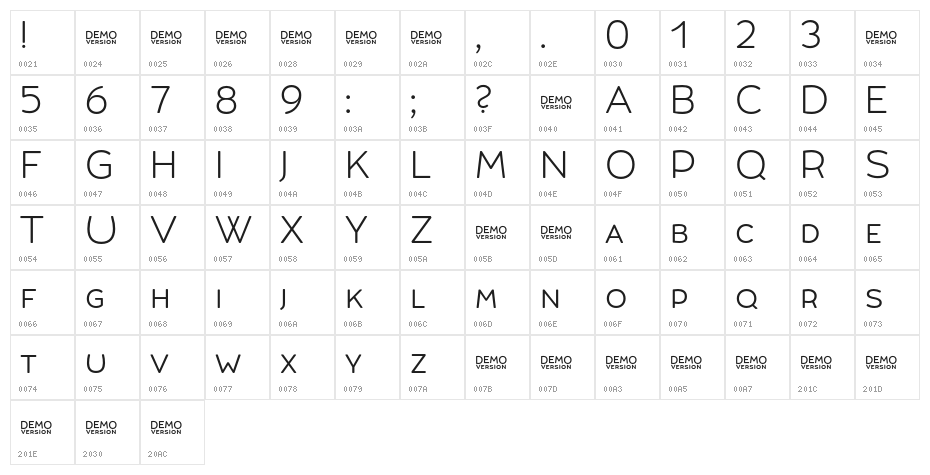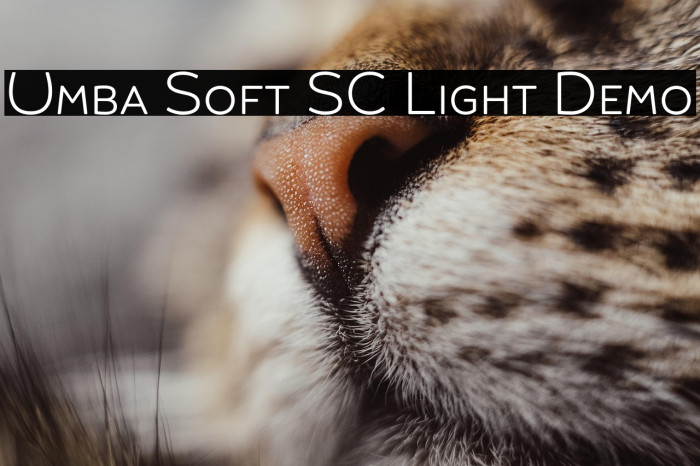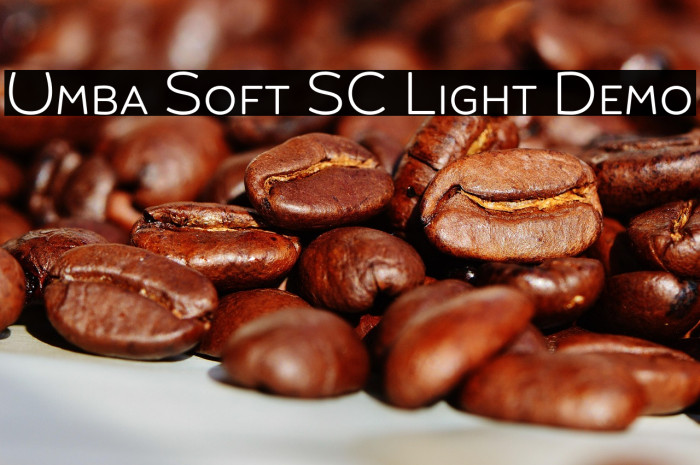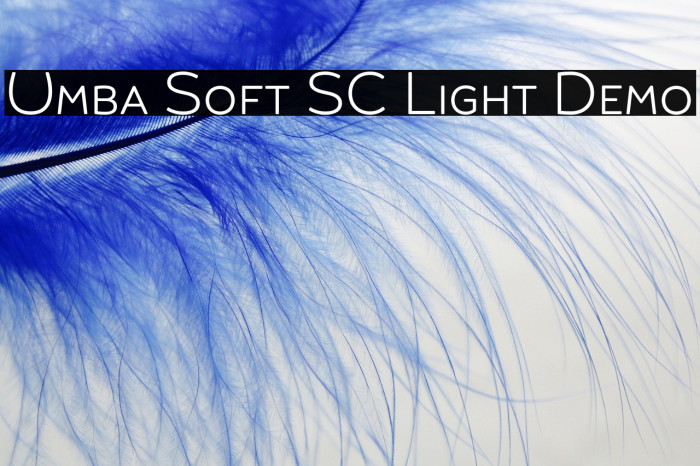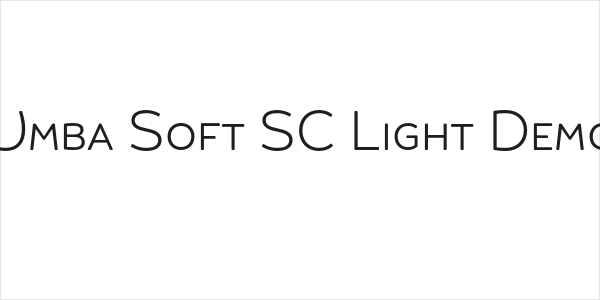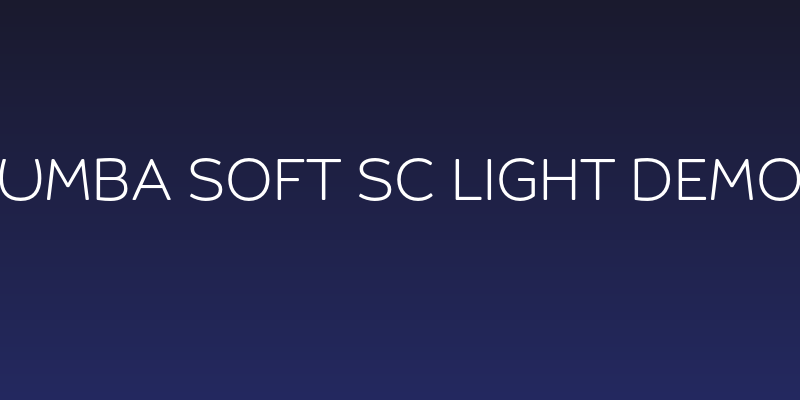
Umba Soft SC Light Demo Font
Umba Soft SC Light Demo Description
This font features a clean, modern aesthetic with smooth curves and a geometric structure. The characters are evenly spaced, providing a balanced and harmonious appearance. The uppercase letters are slightly taller than the lowercase, giving a subtle distinction that enhances readability. The numerals are consistent with the overall design, maintaining the same geometric style. Special characters are crafted with the same attention to detail, ensuring they integrate seamlessly with the rest of the font. The overall look is sleek and professional, making it suitable for a variety of design applications.